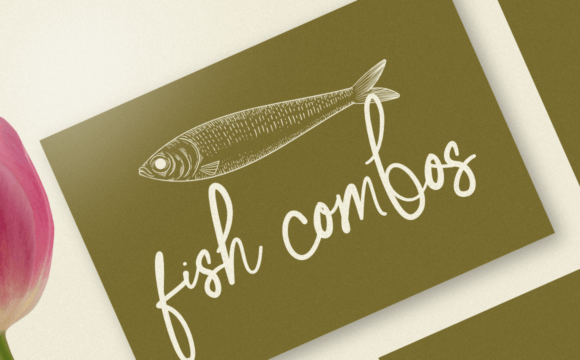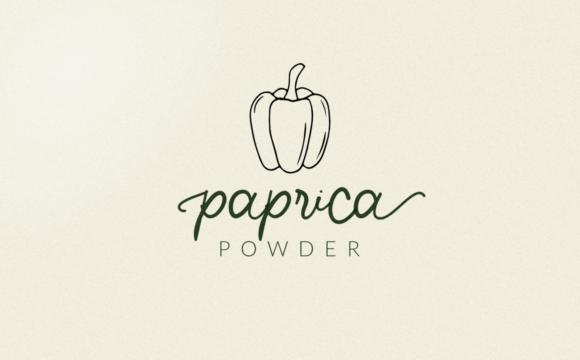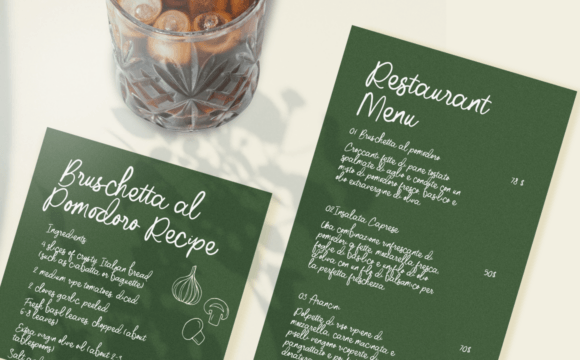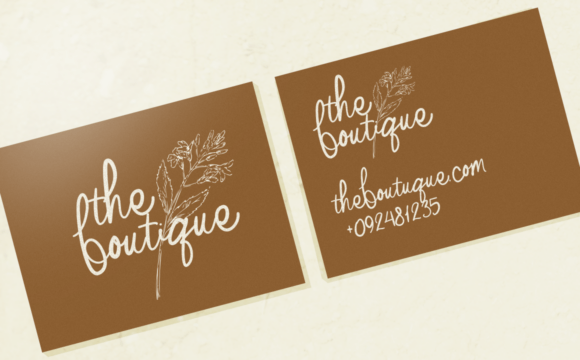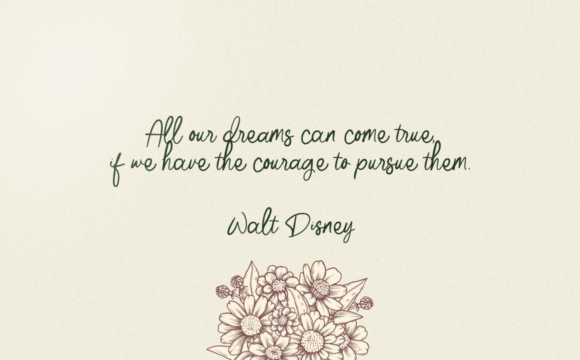
Introduction to Lamonte Handwritting Font
Introducing Lamonte Handwriting, a charming and playful typeface designed to bring a touch of whimsy and organic flow to your projects.
With its natural, free-flowing strokes and imperfect elegance, Lamonte evokes the warmth and authenticity of handwritten text, making it perfect for those seeking a personal, handcrafted feel Ideal for organic brands, creative packaging, and whimsical designs, Lamonte Handwriting adds a delightful, artistic touch to any project.